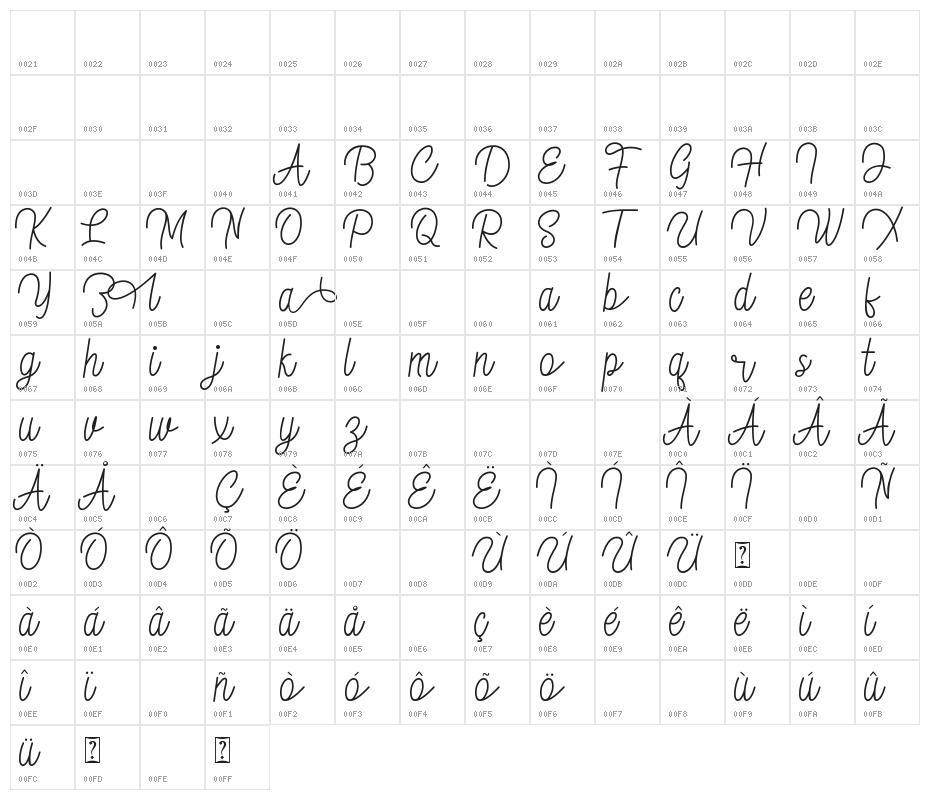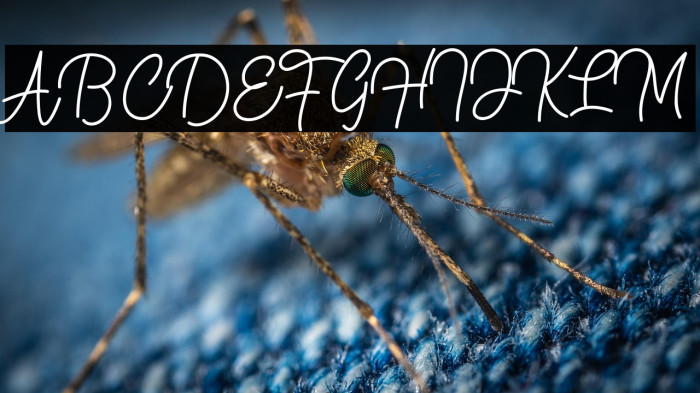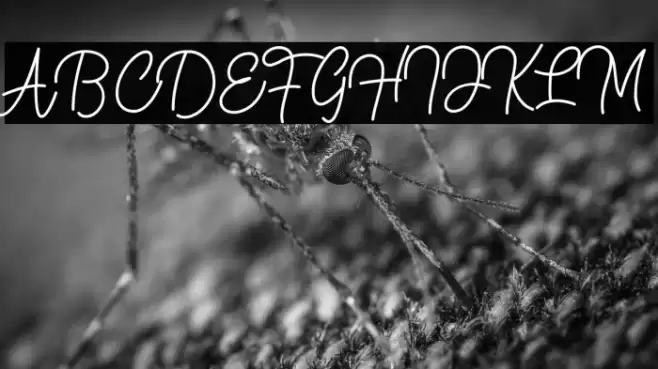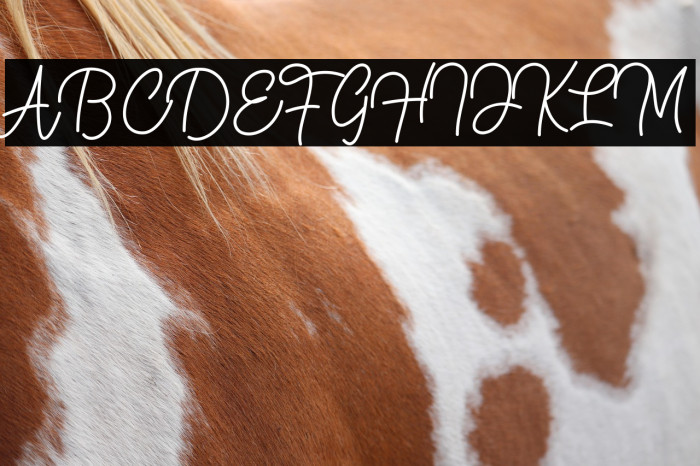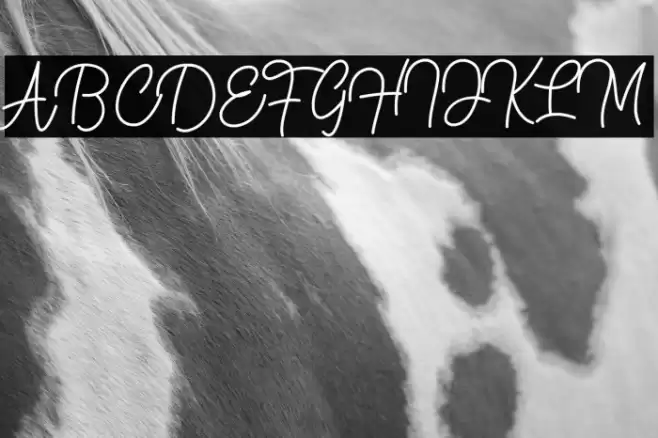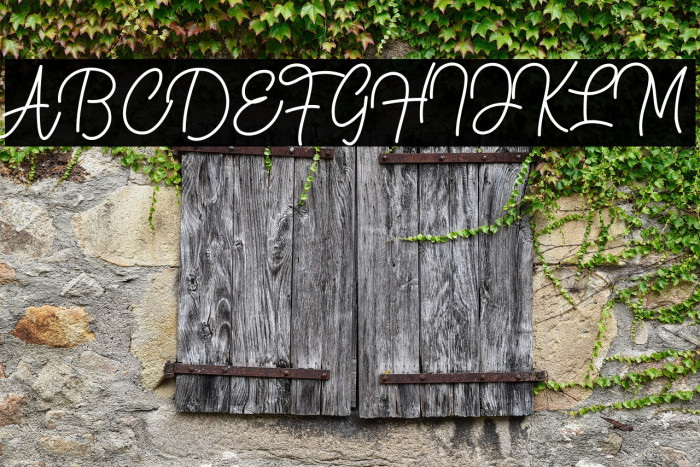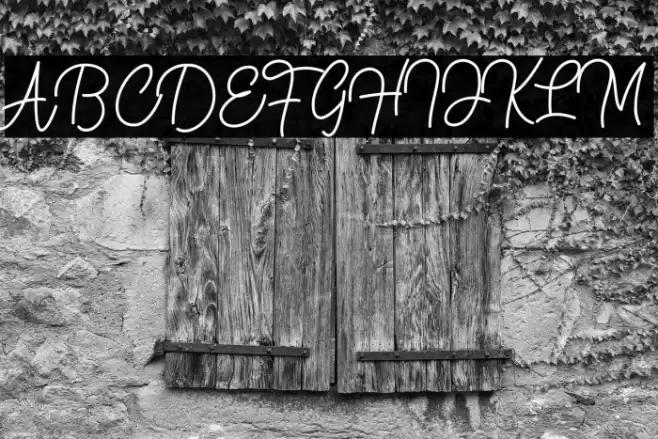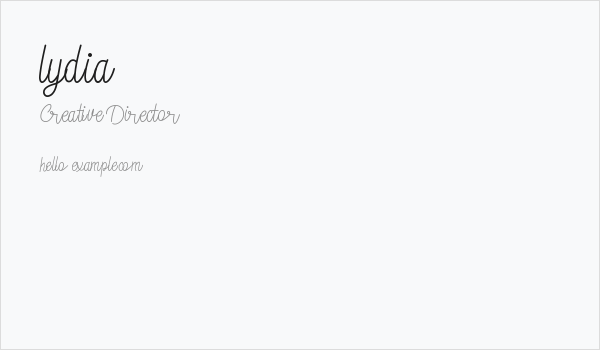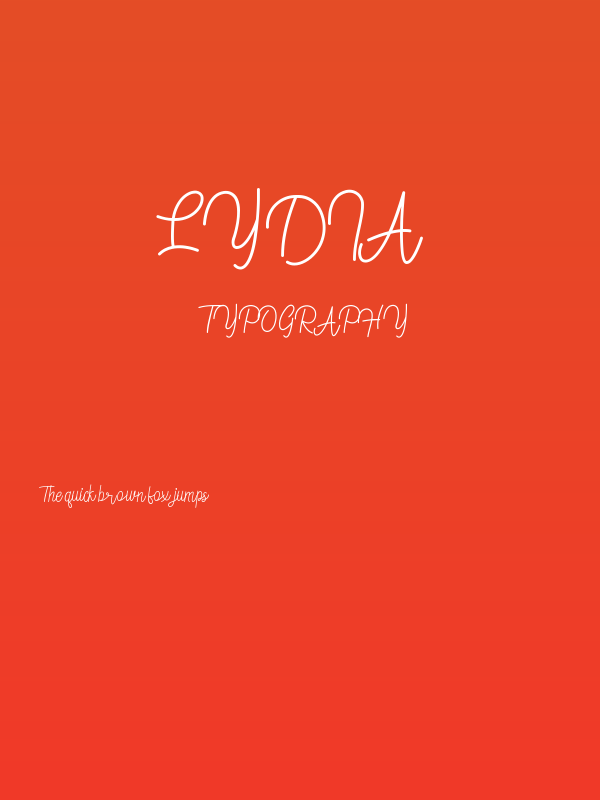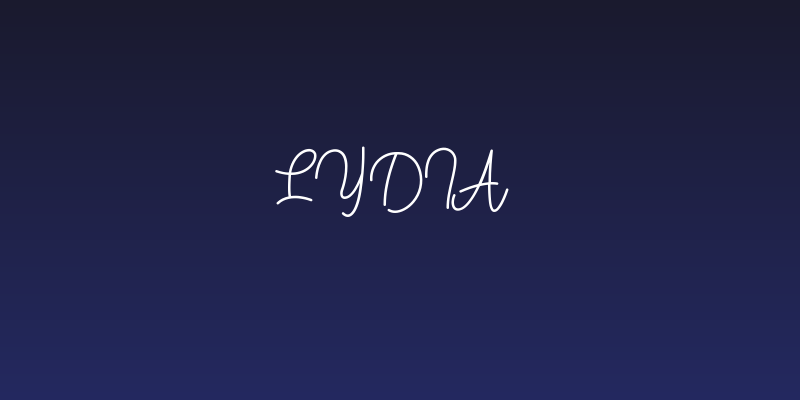
lydia Font
lydia Description
This font features a flowing, cursive style with elegant loops and swirls, giving it a handwritten appearance. The uppercase letters are tall and slightly narrow, with smooth curves and a consistent stroke width. The lowercase letters maintain a similar style, with some characters extending below the baseline, adding to its graceful look. The numerals and special characters are designed to match the overall aesthetic, making it suitable for decorative purposes.
| Proposed Projects | Ideal for wedding invitations, greeting cards, personal branding, and decorative signage. |